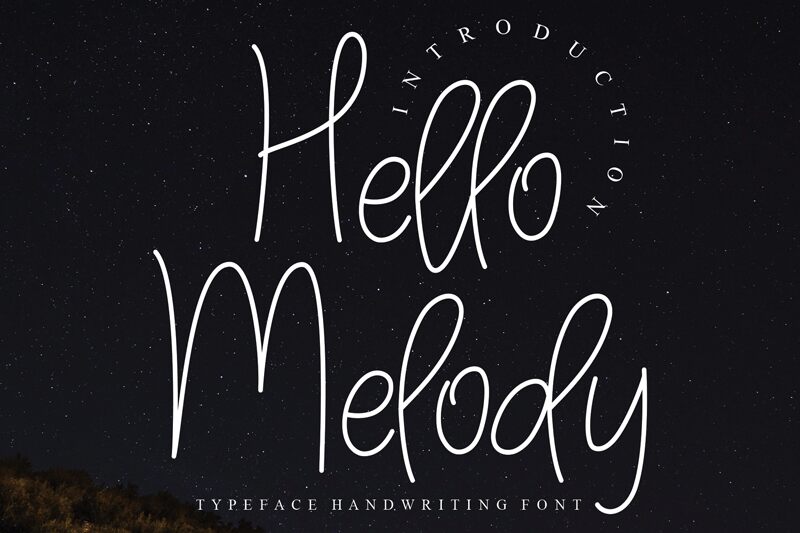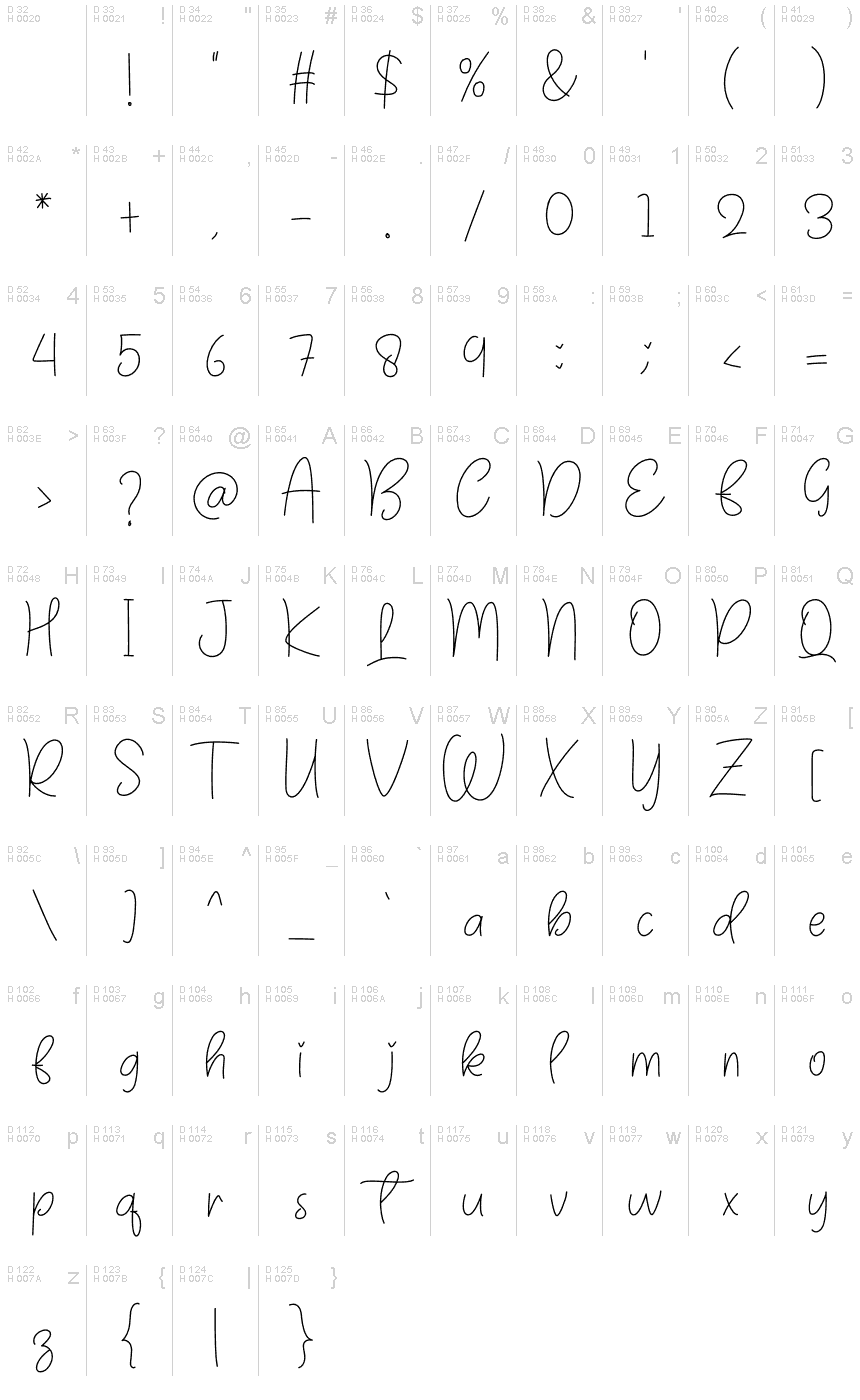
Hello Melody
Hello Melody font is a lovely thin handwritten typeface designed by Andi Moz.
the latest style letters are perfect for wall displays, wedding invitations, social media post logos,
advertisements, product packaging, product designs, labels, photography, watermarks, invitations, stationery,
and any project that requires taste handwriting.